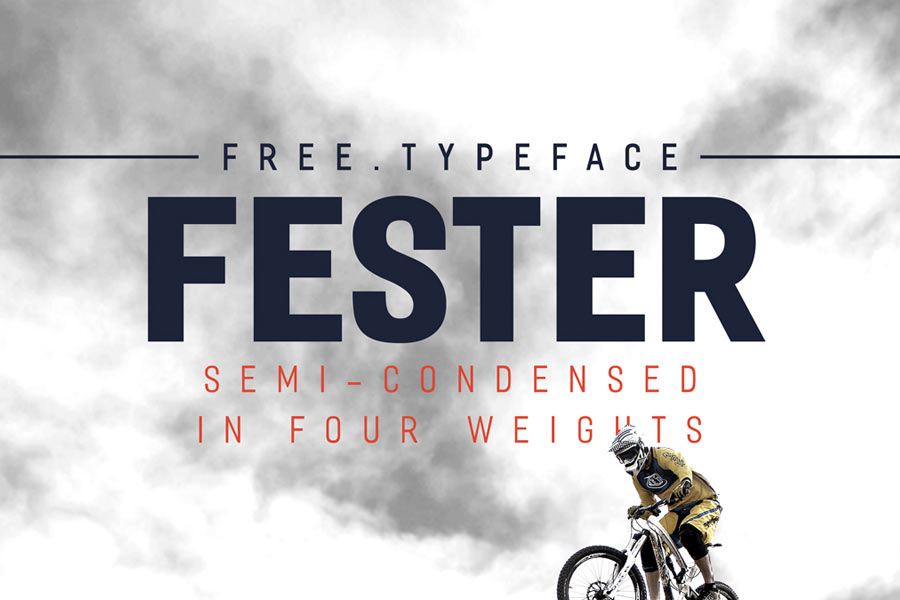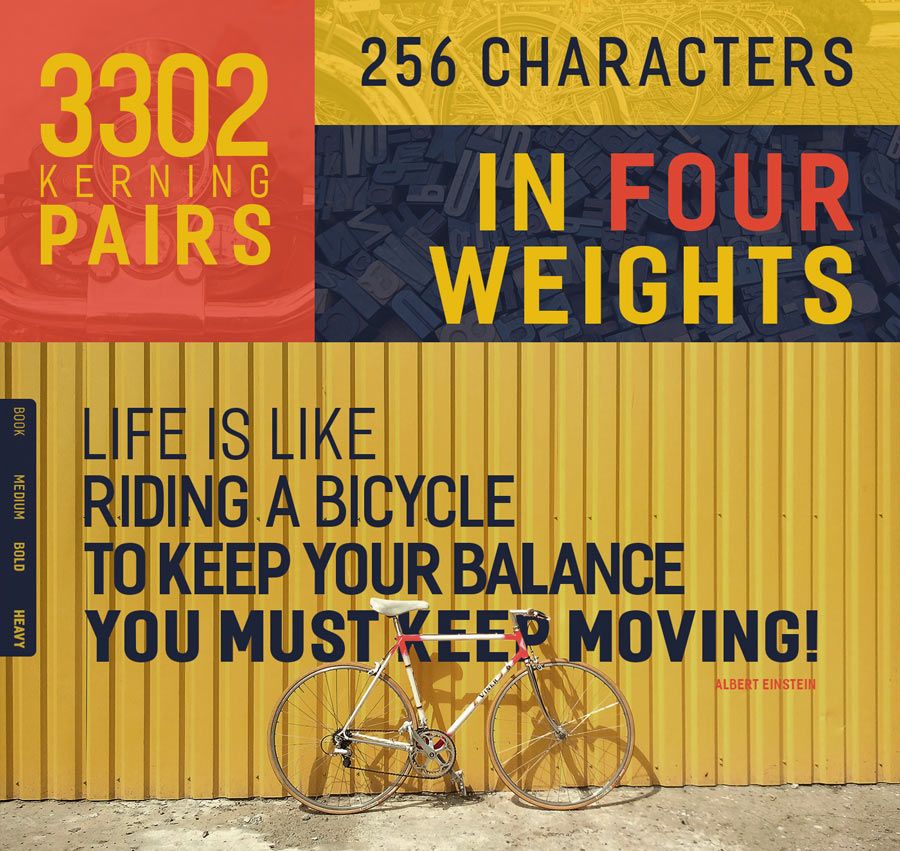
Fester is a semi-condensed, uppercase-only free font that comes with 4 different weights. Fester font is similar to Bebas Neue, it looks great with big sizes. You can download this font for free with a mention on social media.
- Designer: Nawras Moneer
- Styles: 4 (Book, Medium, Bold and Heavy)
- Category: Sans Serif